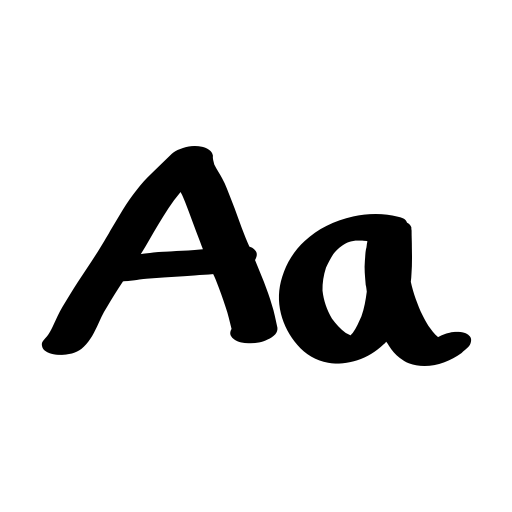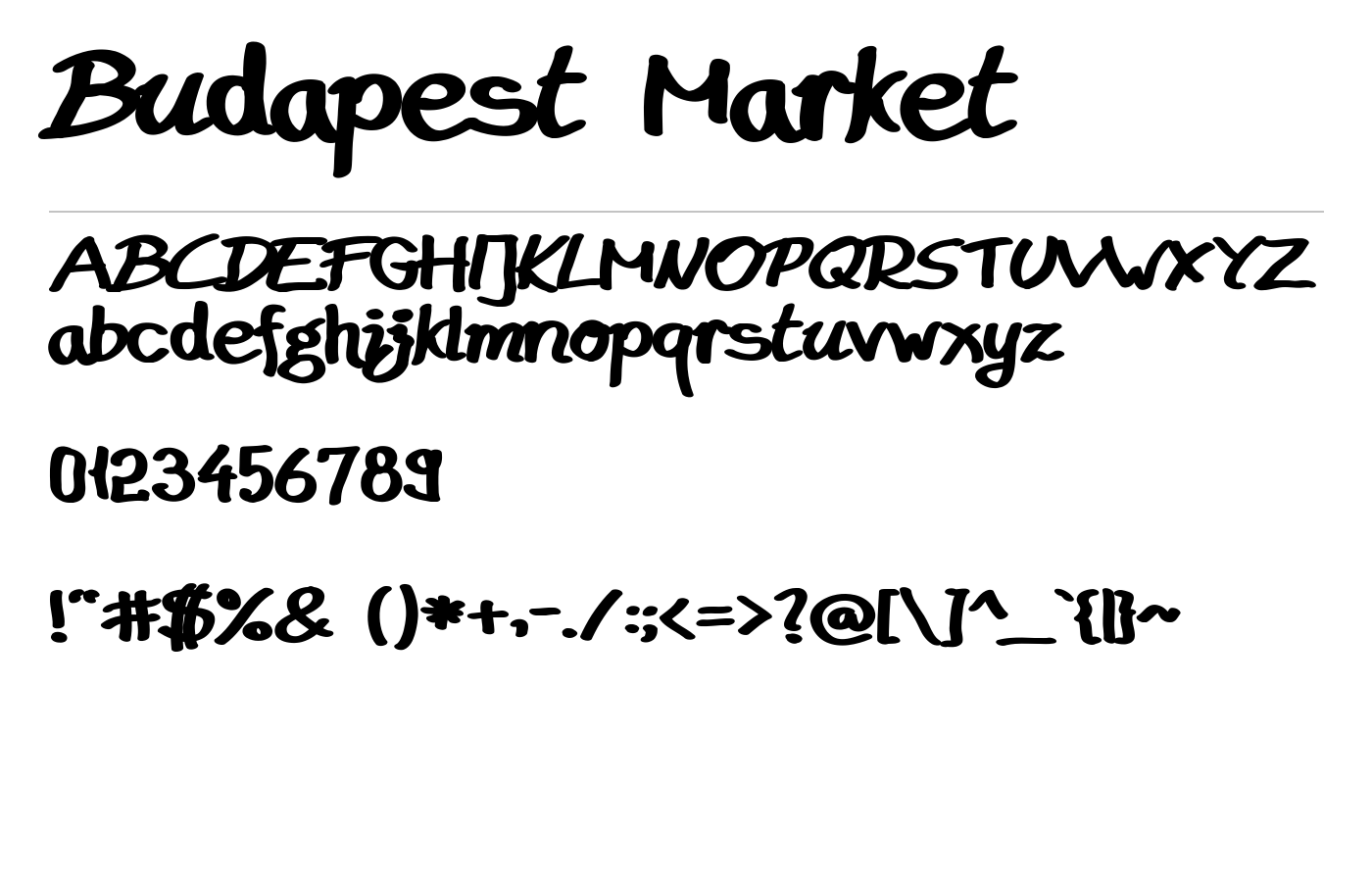
Budapest Market is a playful, informal script font with a handwritten feel that exudes warmth and personality. Its bold weight and casual letterforms make it perfect for creative projects, logos, packaging, and headlines that want to convey friendliness and approachability. This font works well where a personal and energetic vibe is needed, adding charm and a touch of uniqueness.
Budapest Market Font
About Budapest Market Font
| Font family | Budapest Market Font |
| Designer | Attila Acs |